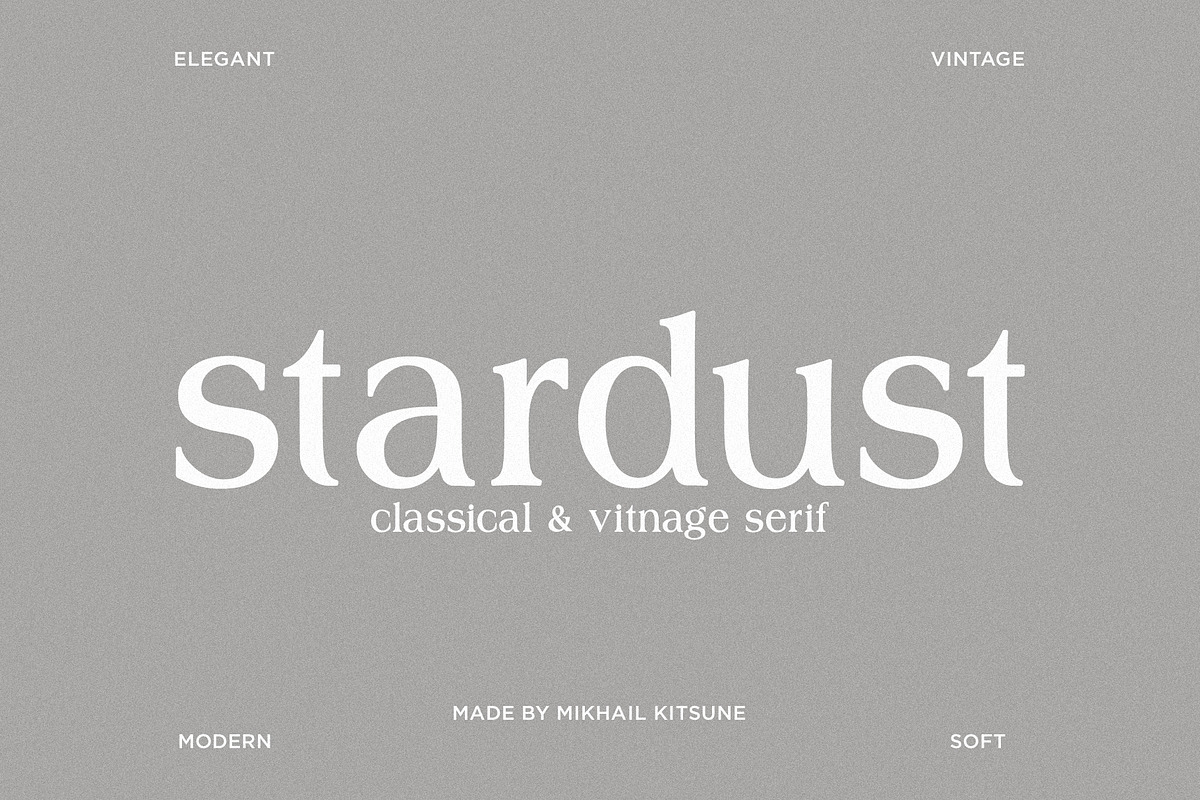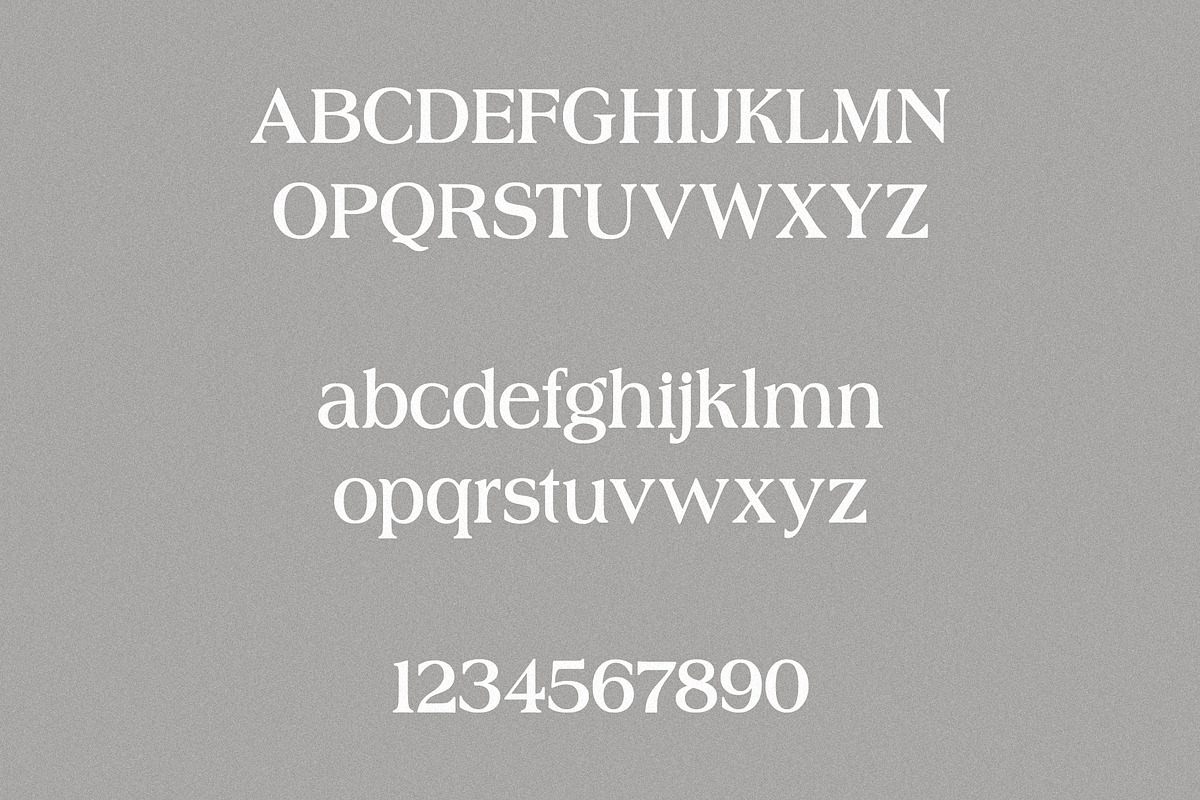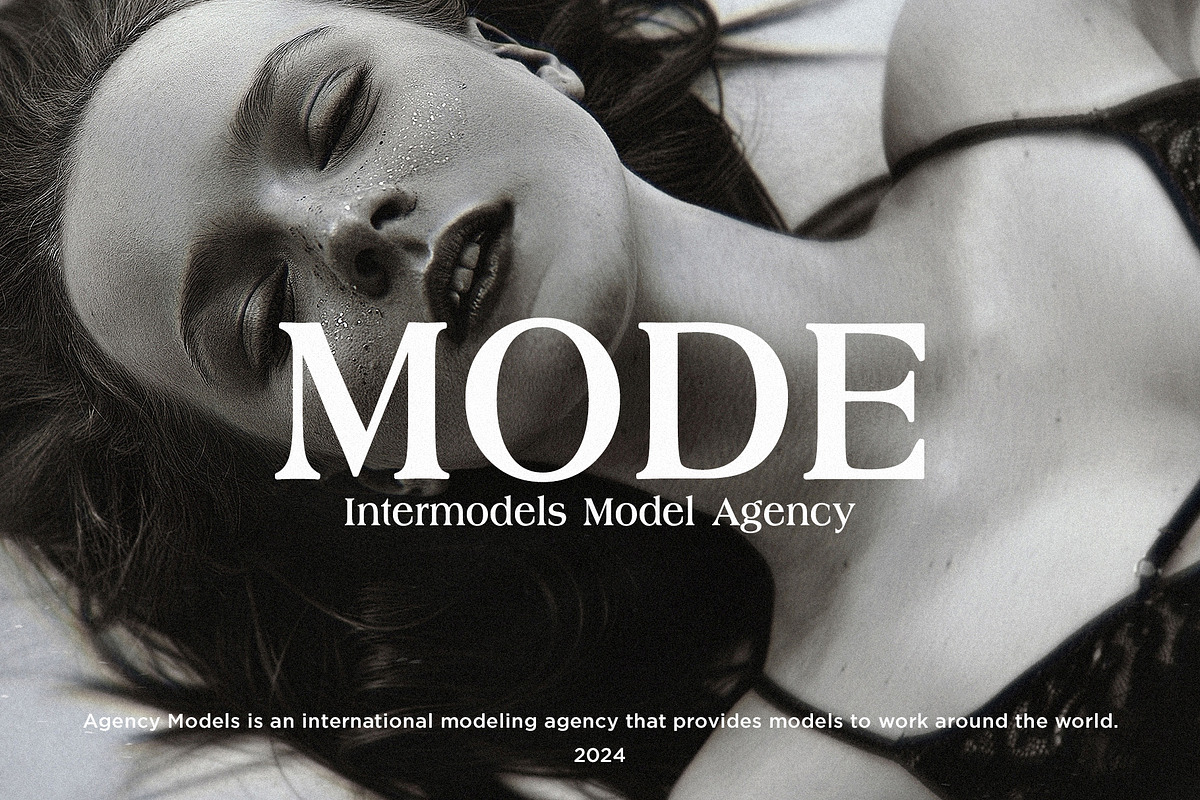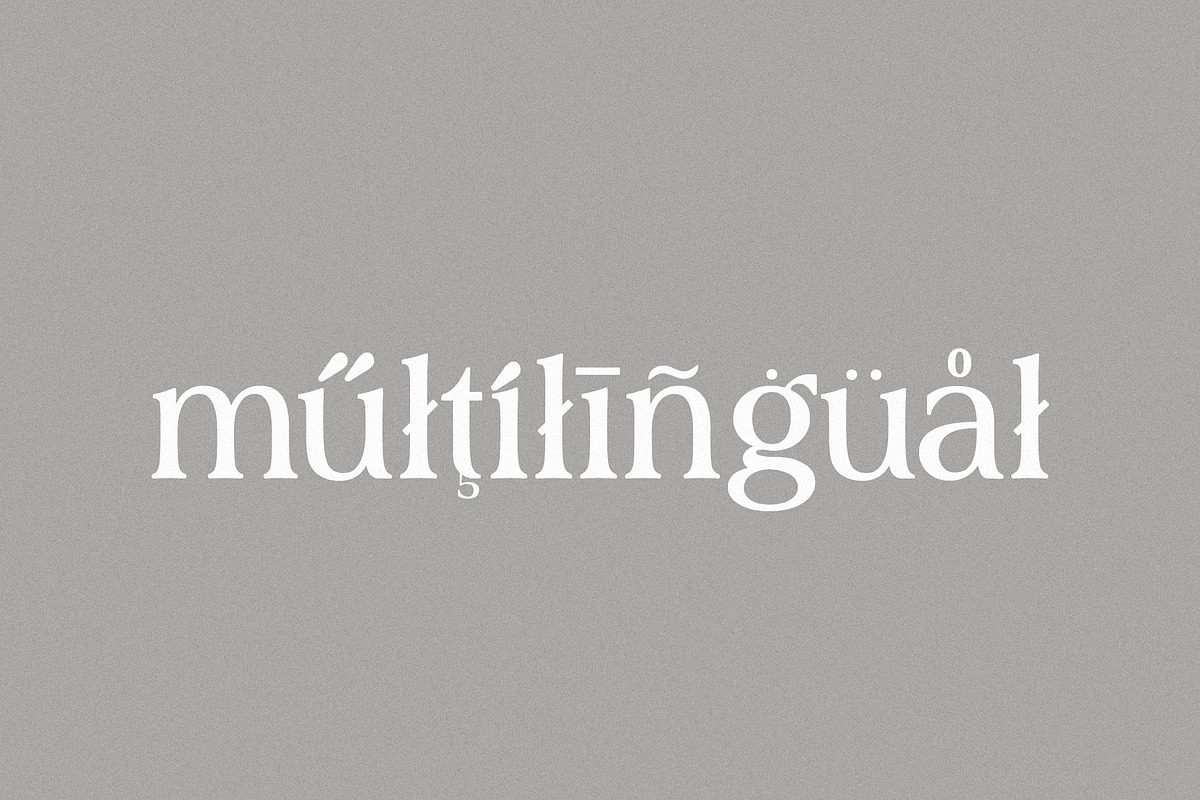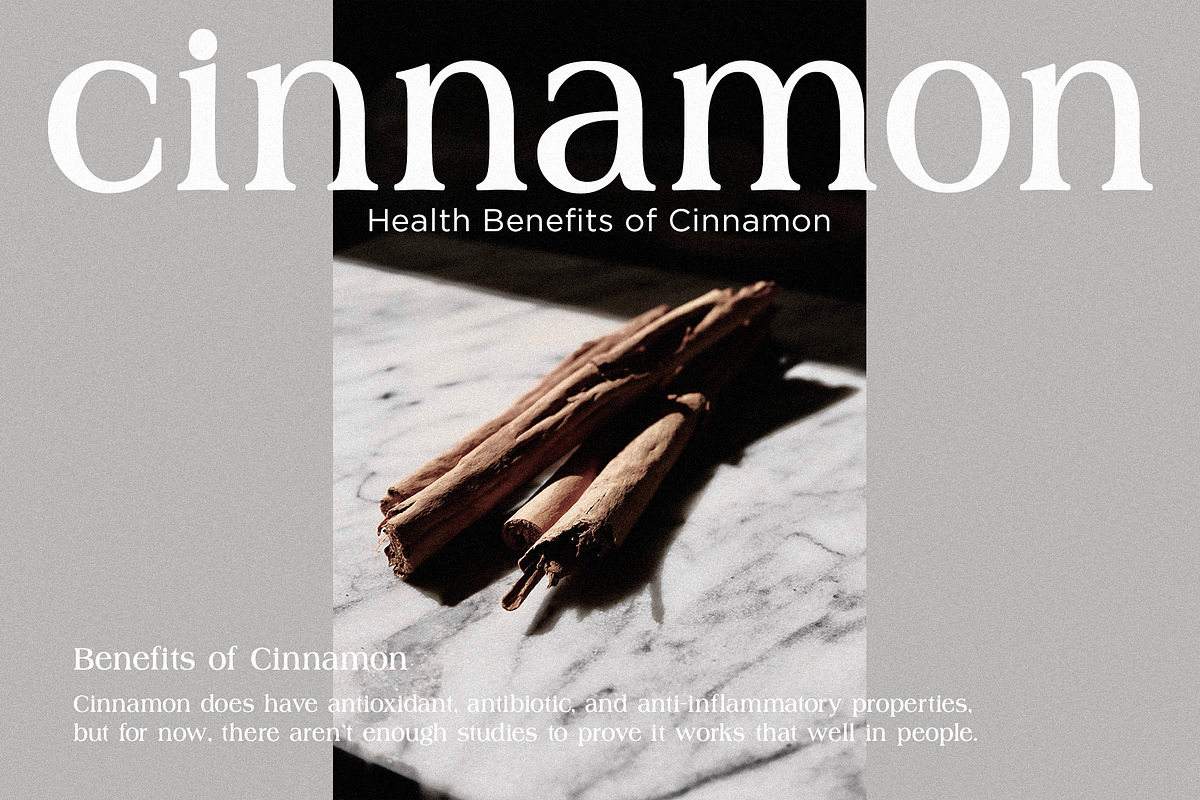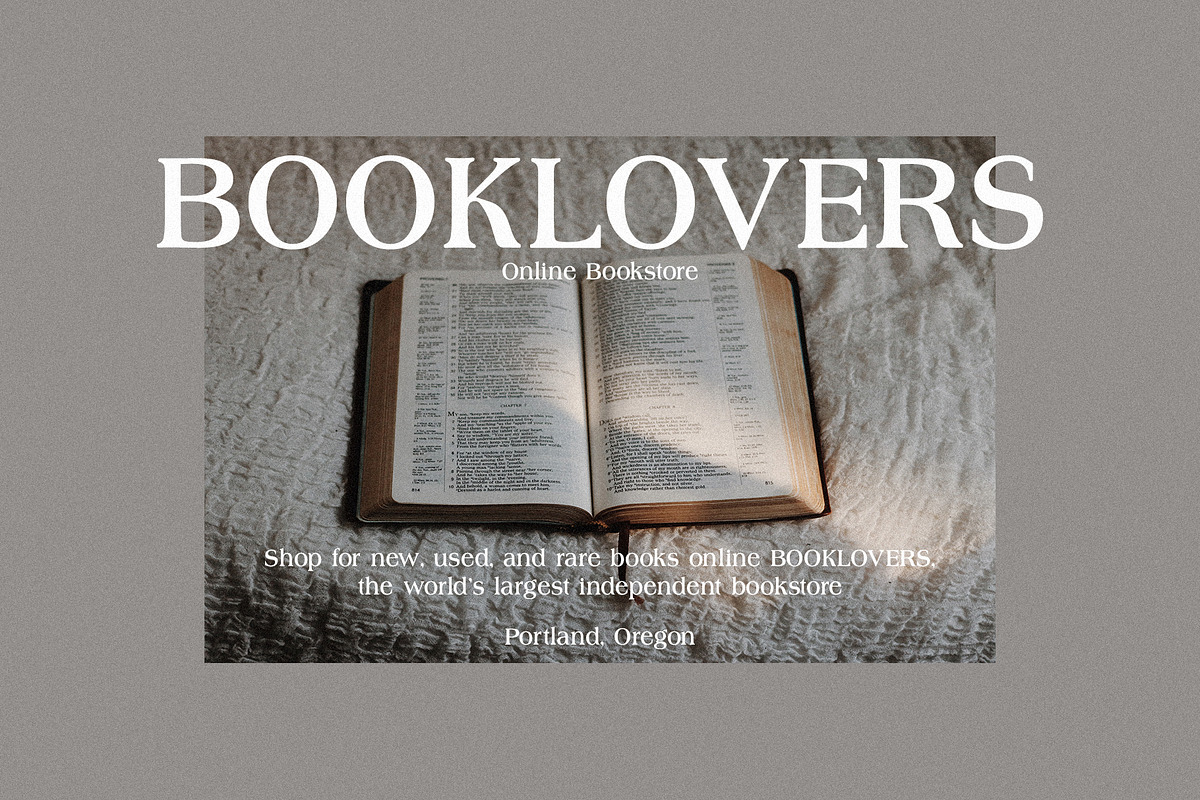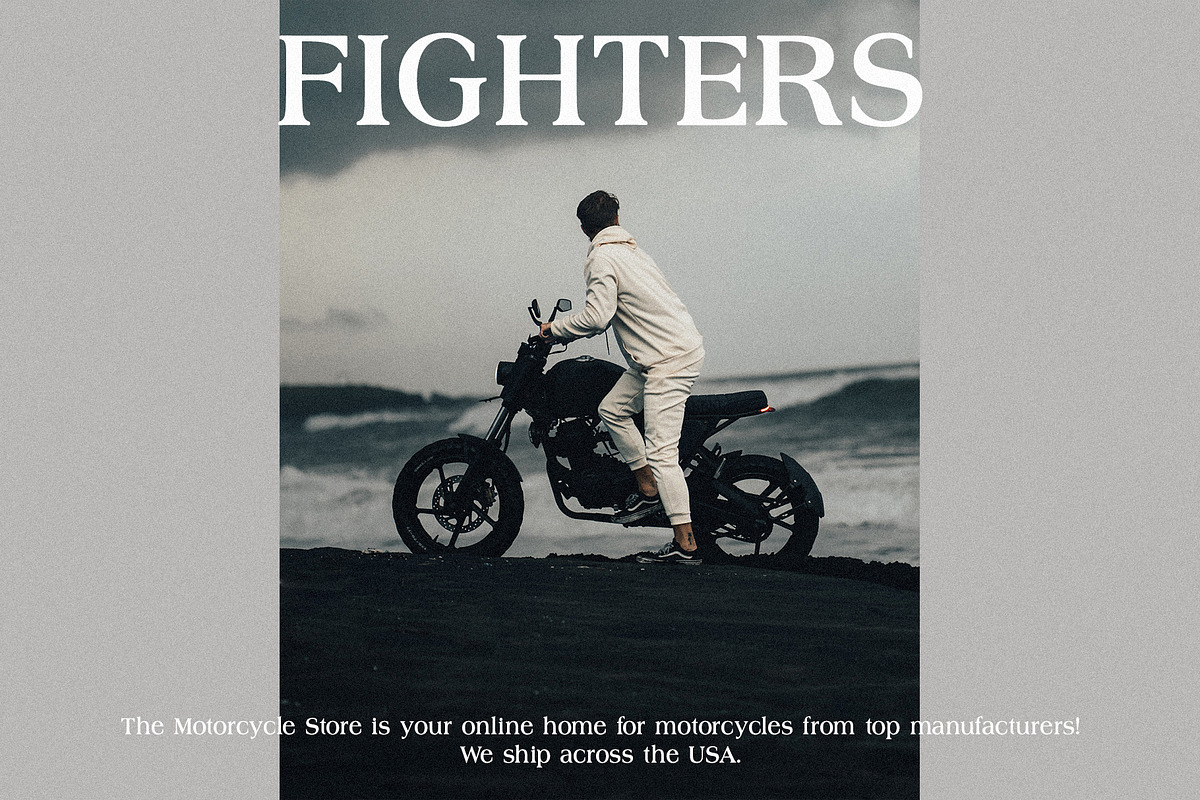
stardust - classical & vintage serif
Stardust is a classical & vintage serif. Stardust is a combination of classic serif & vintage look. Stardust is perfect for vintage logos, headers, t-shirts, magazine headers and many more. Stardust helps to create a design in 60s, 70s, 80s styles.